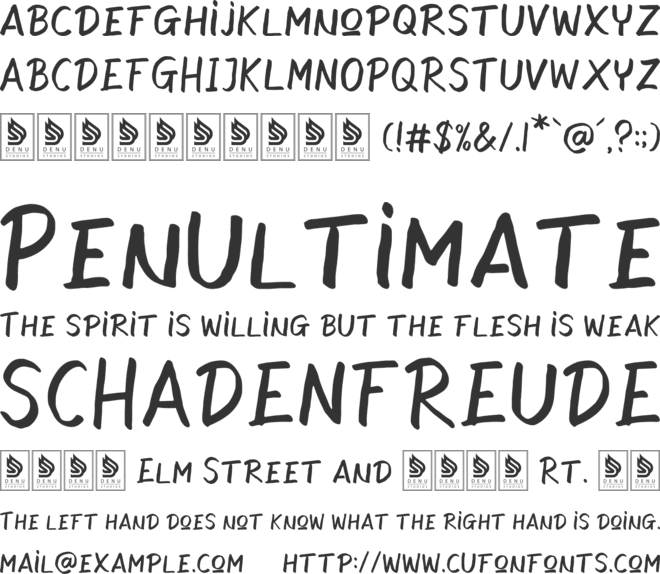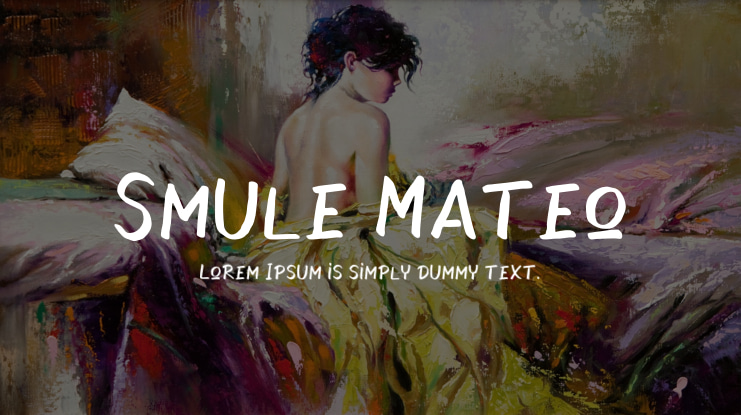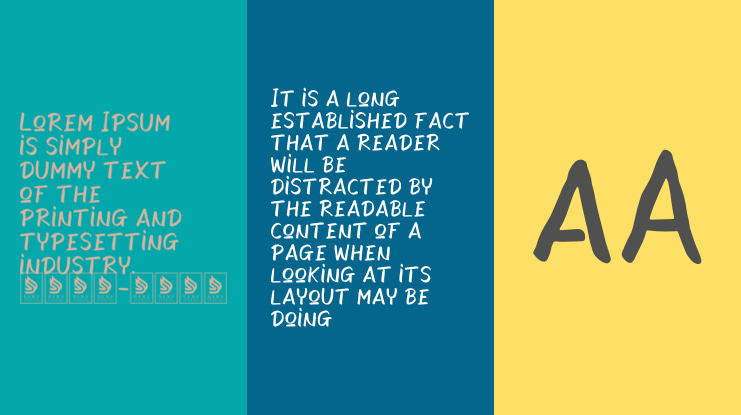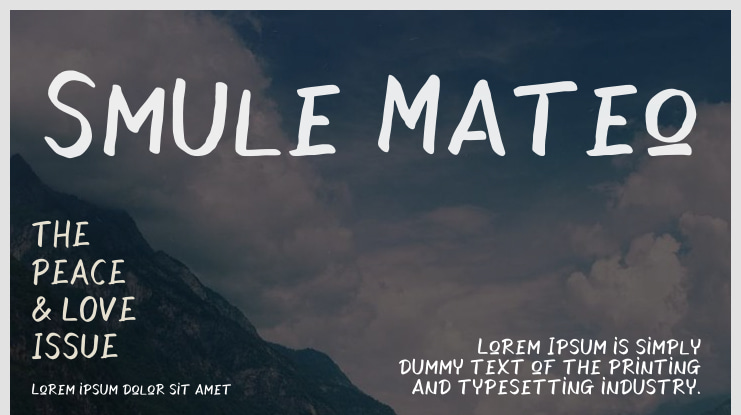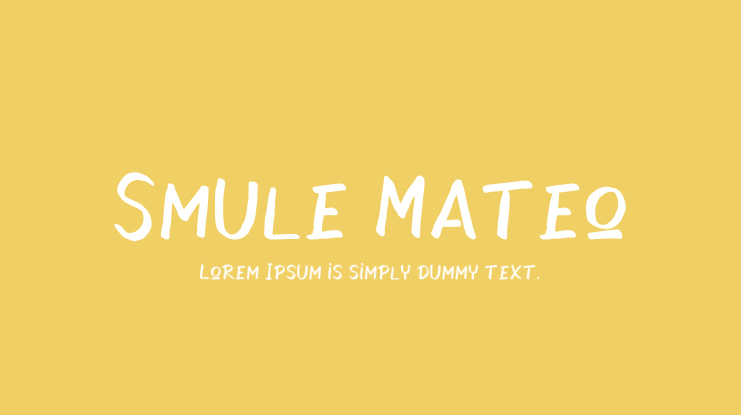
Smule Mateo Font
Smule Mateo | Handwritten Font is perfect for a range of projects including logos, branding, homeware designs, product packaging, mugs, quotes, posters, shopping bags, t-shirts, book covers, name cards, invitation cards, greeting cards, labels, photography, watermarks, special events, and any other project needing a handwritten font touch.